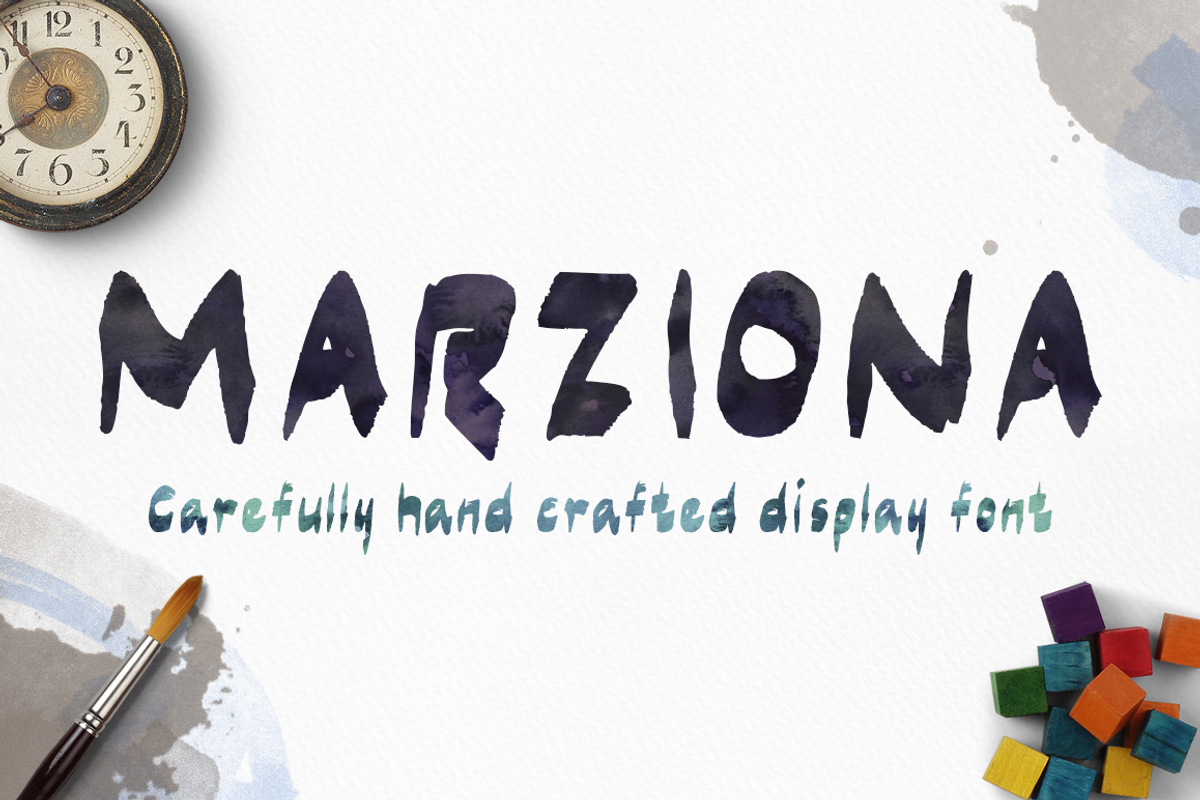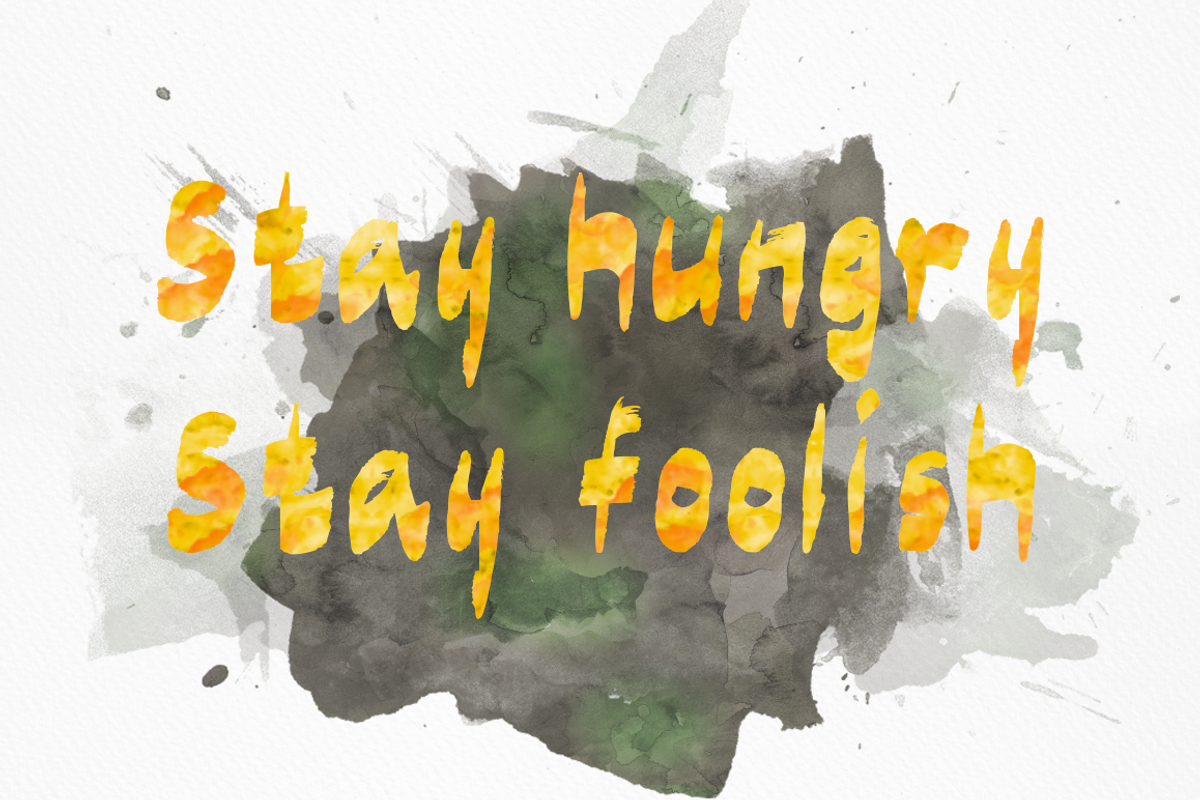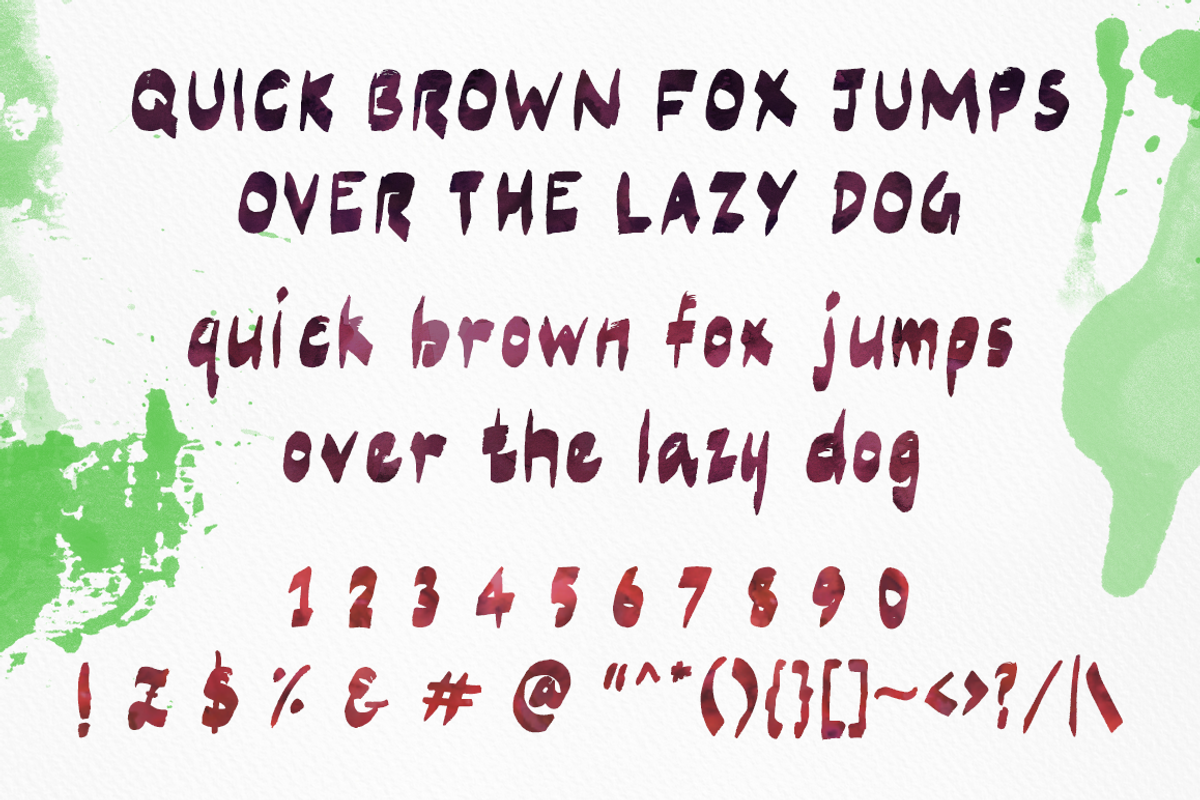
Marziona Pro Font
Marziona Pro Font by Niram Factory is a font selected for branding, posters, packaging, typography.
- It comes with uppercase, lowercase, numerals, punctuations, and more,.
Marziona Pro Font by Niram Factory fits naturally into Branding, posters, packaging, typography.